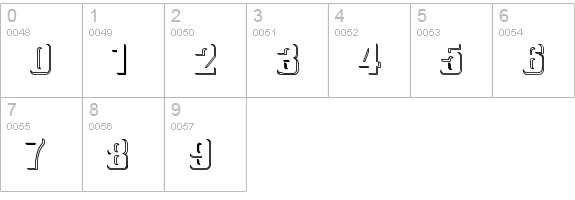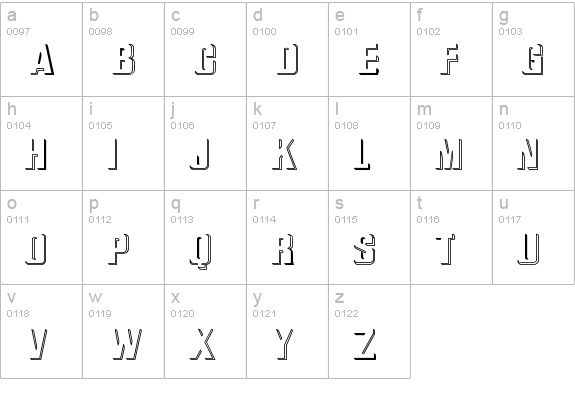
WhatA-Relief Hollow font is a stunning display typeface that captivates with its intricate and hollow design. This font is a true visual delight, with each letter carefully crafted to create a sense of depth and dimension. The hollowed-out characters give the impression of delicacy and elegance, making it perfect for a wide range of creative projects. What sets WhatA-Relief Hollow font apart is not just its mesmerizing aesthetics, but also its versatility. Whether you're designing a logo, creating eye-catching headlines, or adding a touch of sophistication to your social media posts, this font is bound to make a lasting impression. One of the best aspects of WhatA-Relief Hollow font is that it is completely free to download. Yes, you read that right - free! This means that you can easily access this stunning font without having to worry about any additional costs. Simply head over to FontsMarket.com and grab your copy today. With its seamless legibility and unique hollow design, WhatA-Relief Hollow font is sure to elevate your designs to new heights. Don't miss out on this incredible opportunity to add a touch of elegance to your creative projects. Download WhatA-Relief Hollow font for free at FontsMarket.com and embark on a journey of visual excellence.